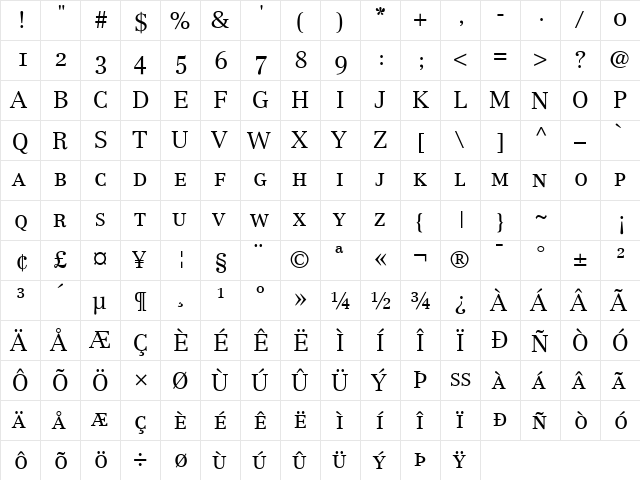
Century Reprise LightOldStyle SSi Light Small Caps
Design Context for Century Reprise LightOldStyle SSi Typeface
Century Reprise LightOldStyle SSi carries the refined structure of traditional serif typography, with bracketed terminals and considered proportions that communicate credibility and craft. The delicate stroke weight brings airiness and refinement to layouts.
Pro Tip: Set Century Reprise LightOldStyle SSi at slightly larger body copy sizes than you would a regular-weight serif to compensate for its delicate stroke contrast.